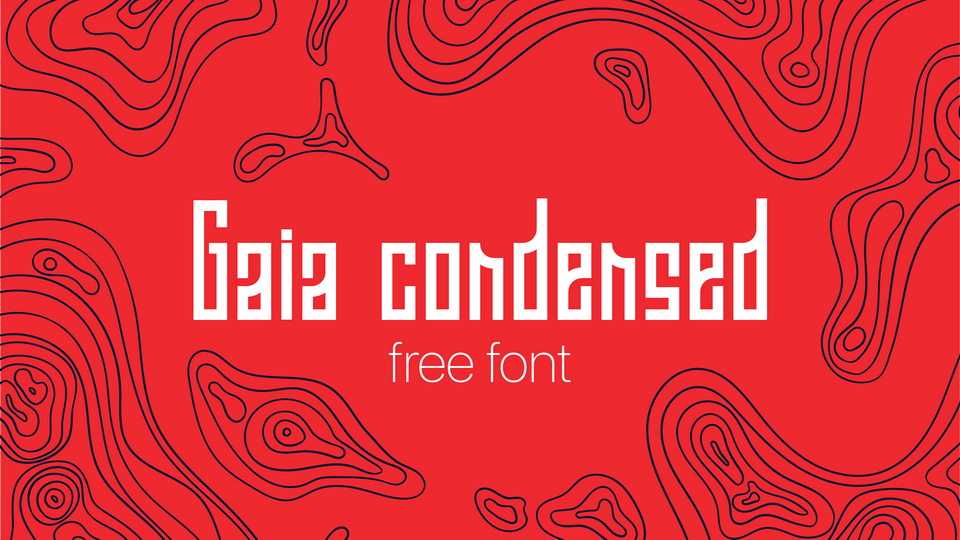
Download Gaia Condensed font, a unique display typeface based on the geometric forms. Gaia Condensed is best for posters, headlines and other artworks.